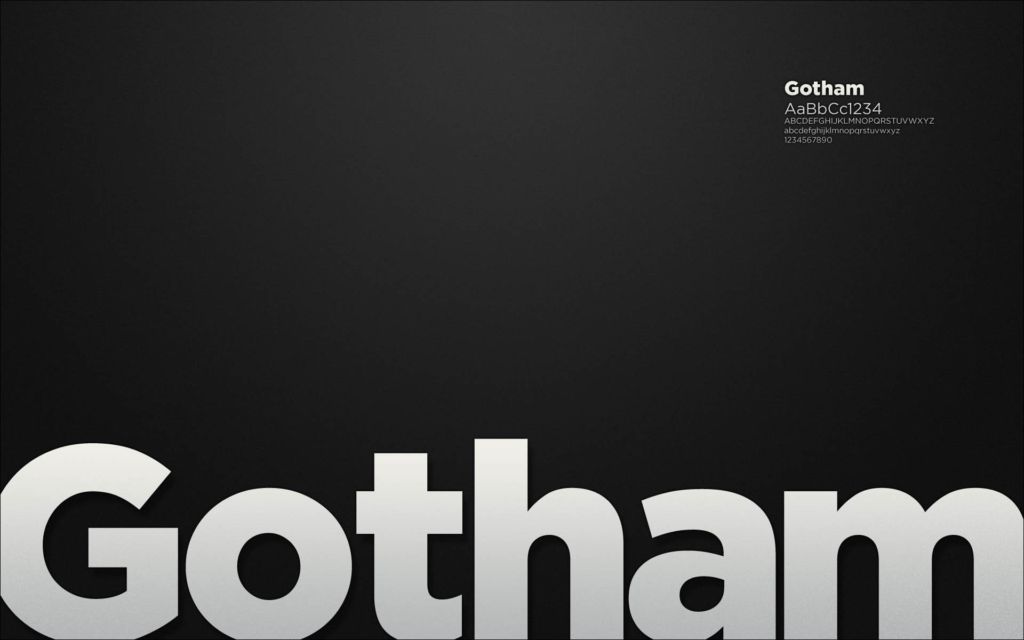
Gotham Light Font Word
Also, the gotham extra light font is perfect for branding projects, housewares designs, product. You can follow the question or vote as helpful, but you cannot reply to this thread. You can use the gotham rounded light to create interesting designs, covers, shop and store name and logos.
Any suggestions on how i can add this font to the list. Hamlin is inspired by classic geometric fonts similar to gotham. This modern sans serif is a contemporary take on the minimalist design trend.